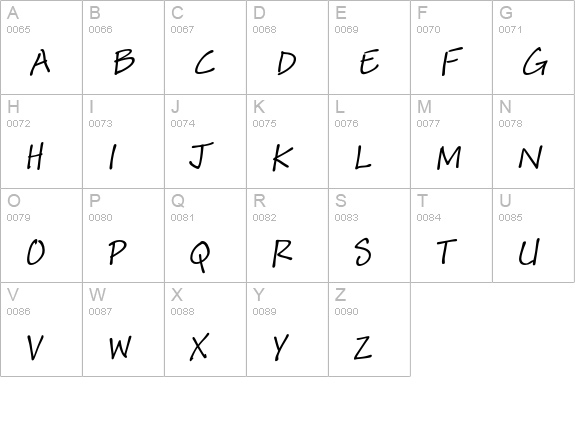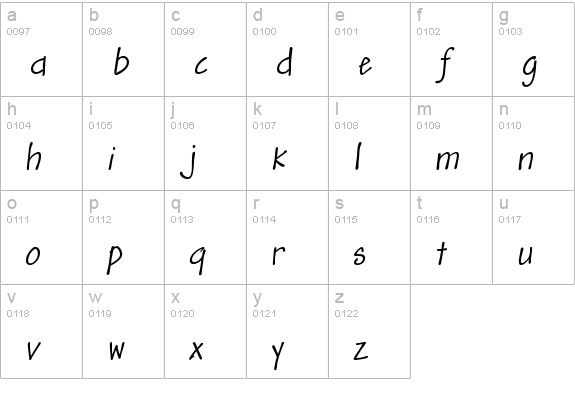
Andy Std Italic Font Details
Andy Std Italic is a distinctive, italic variant in the Andy typeface family \xE2\x80\x94 well suited to design and typography projects.
The Andy Std Italic font exudes elegance and sophistication with its sleek and modern design. Its slanted style adds a touch of flair to any project, making it perfect for creating eye-catching headers, titles, and signage. Inspired by contemporary typography trends, this font strikes the perfect balance between professionalism and creativity. The Andy Std Italic font is versatile and can be used for a wide range of design projects, from branding to web design to print materials. Its clean lines and subtle curves give it a timeless appeal that will never go out of style. Whether you're working on a logo, a website, a brochure, or any other design project, this font will be sure to elevate your work to the next level. Best of all, the Andy Std Italic font is available for free download at FontsMarket.com. So go ahead, add this stylish and modern font to your collection today and take your designs to new heights!